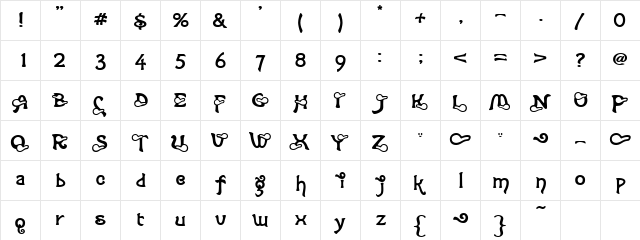
Sennin Alphabe
Design Context for Sennin Typeface
Sennin is a composed and adaptable typeface that performs quietly and consistently across a wide range of design contexts.